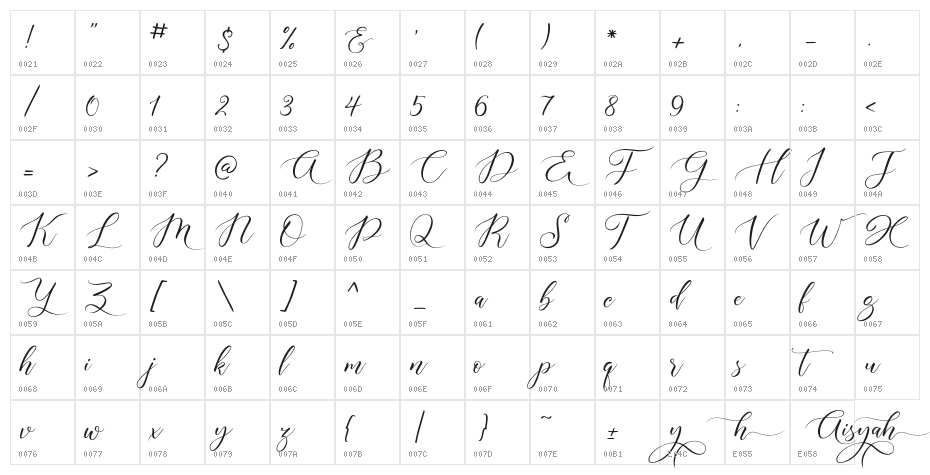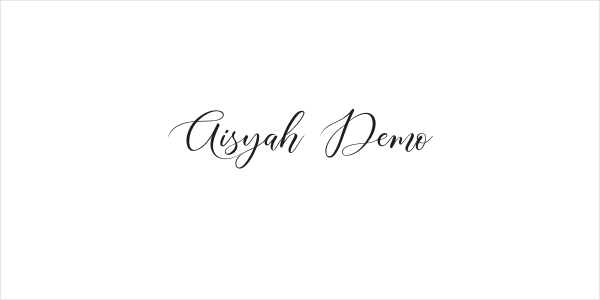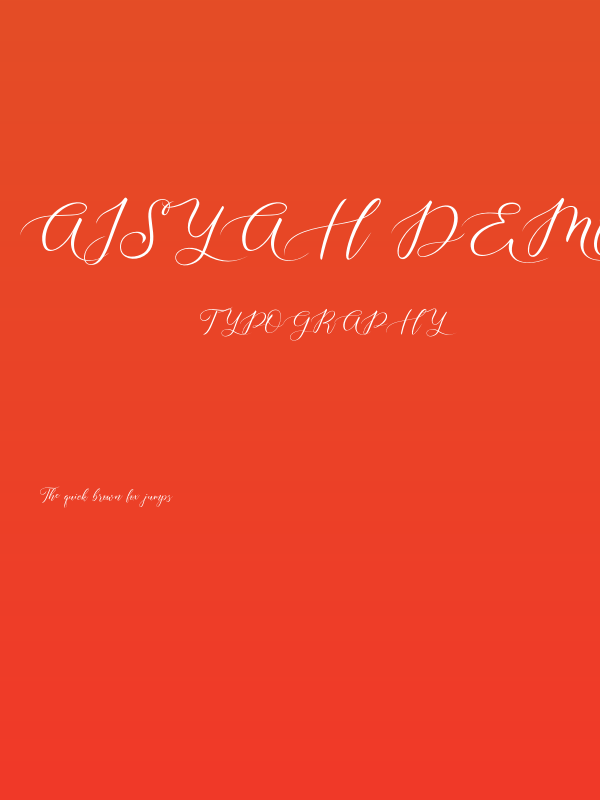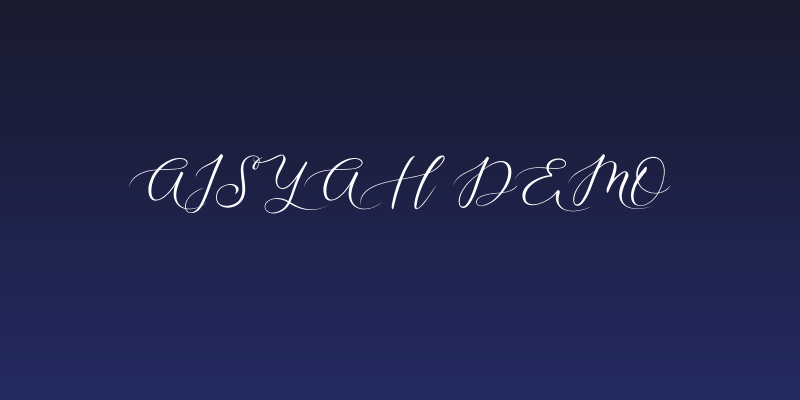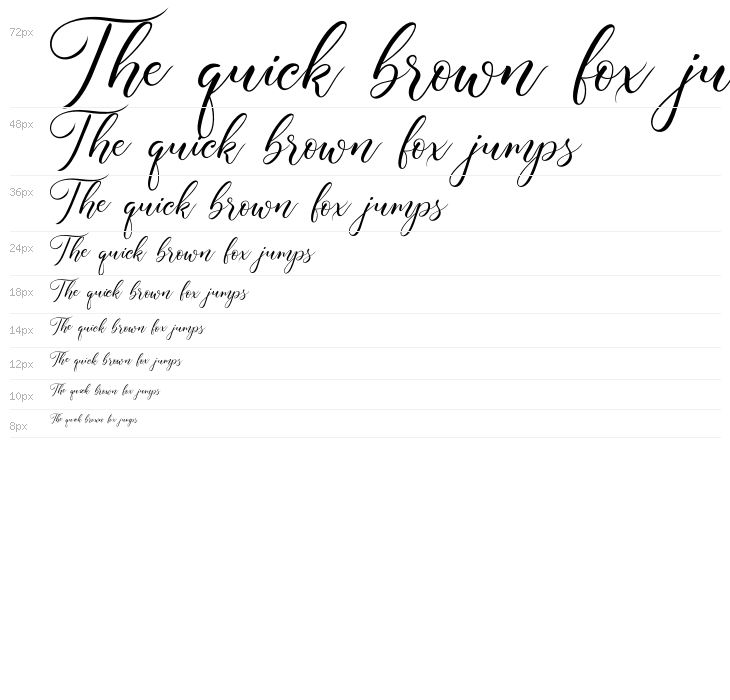
Aisyah Demo Font
Aisyah Demo Description
This elegant script font features flowing, interconnected letters with a graceful and sophisticated appearance. The uppercase letters are characterized by their sweeping curves and loops, creating a sense of fluidity and motion. The lowercase letters maintain a consistent style, with delicate strokes and a slight slant, enhancing the font's overall elegance. The numerals are equally stylish, with a harmonious blend of curves and straight lines. Special characters are thoughtfully designed to match the font's aesthetic, ensuring a cohesive look across all text elements. This font is perfect for adding a touch of refinement and class to any design project.
| Proposed Projects | Ideal for wedding invitations, elegant branding, greeting cards, and upscale packaging designs. |